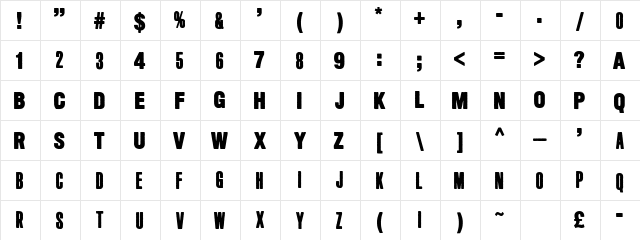
Long Haired Freaky People Regular
Long Haired Freaky People is a composed and adaptable typeface that performs quietly and consistently across a wide range of design contexts.